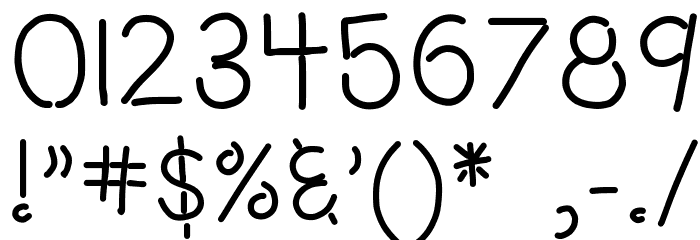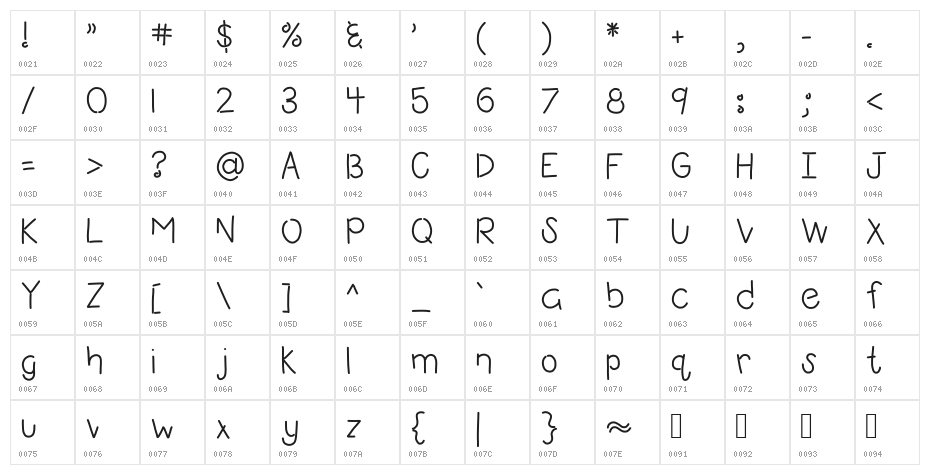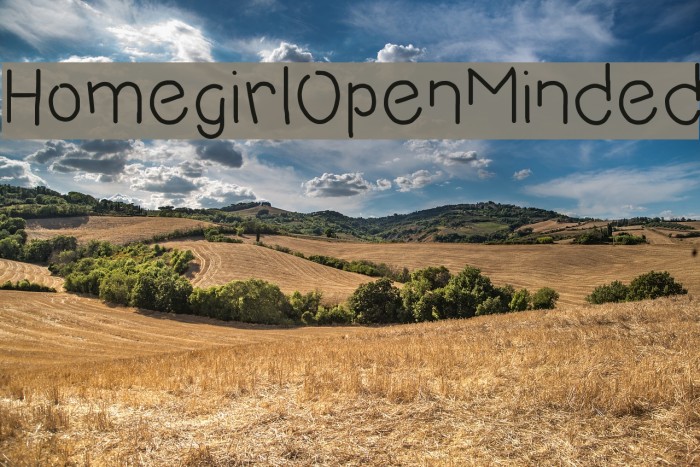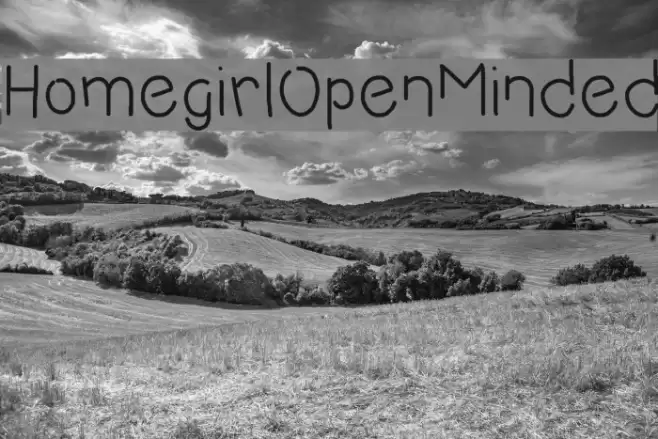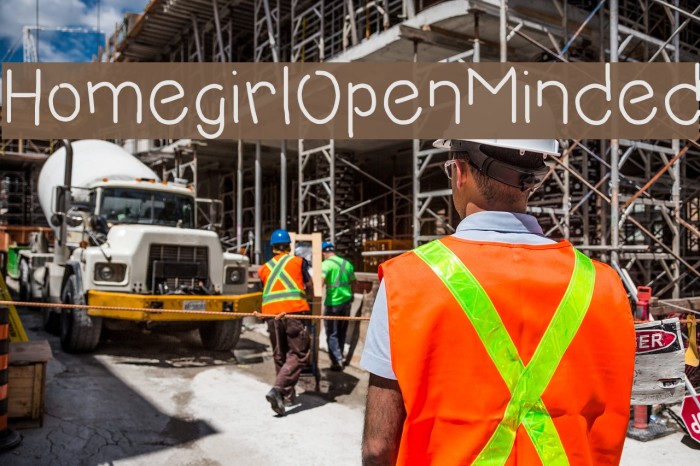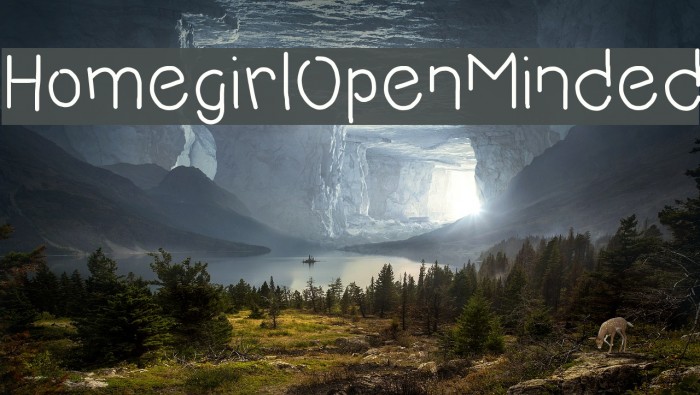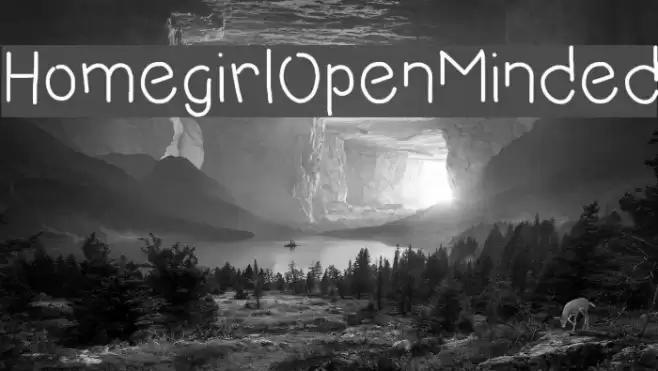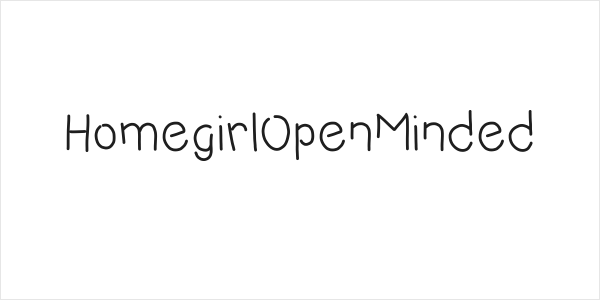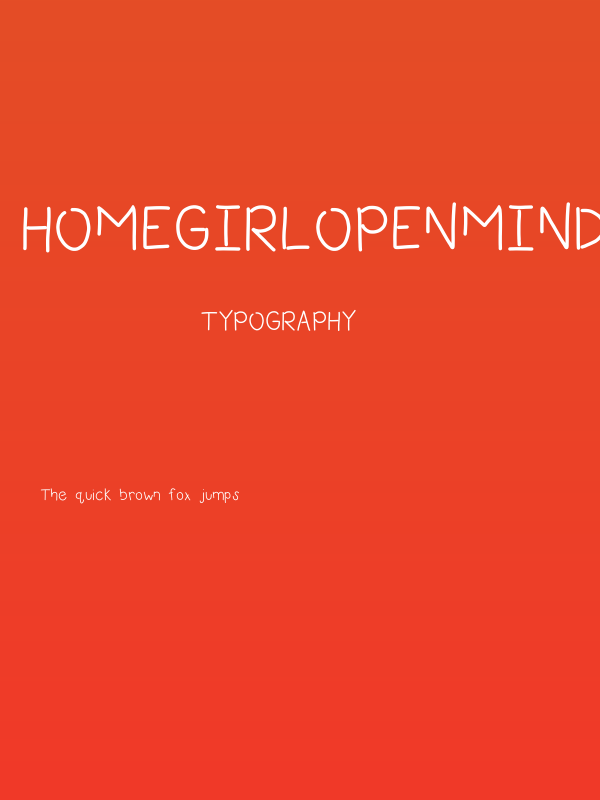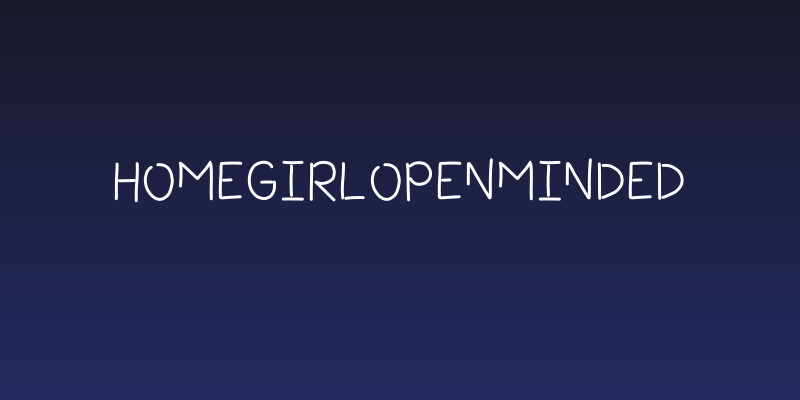
HomegirlOpenMinded Font
HomegirlOpenMinded Description
This font features a playful and casual handwritten style, characterized by its rounded edges and slightly irregular strokes. The letters have a friendly and approachable appearance, with a consistent baseline and moderate x-height. The uppercase and lowercase letters maintain a uniform width, contributing to a balanced and harmonious look. The numerals and special characters are designed to match the overall aesthetic, ensuring a cohesive appearance across all text elements. This font's informal style makes it suitable for projects that aim to convey warmth and personality.
| Use Case | Headlines, Informal text, Personal projects |
| Proposed Projects | Ideal for greeting cards, children's books, personal blogs, and informal branding. |